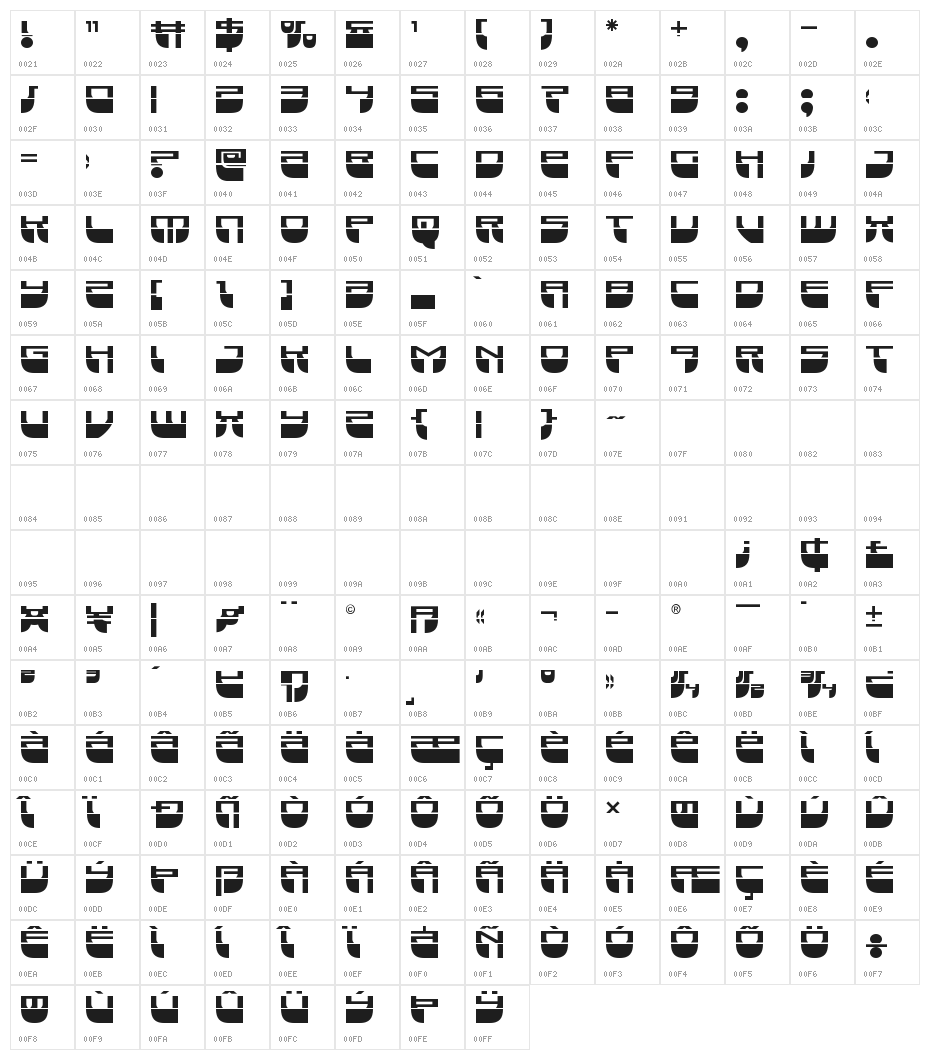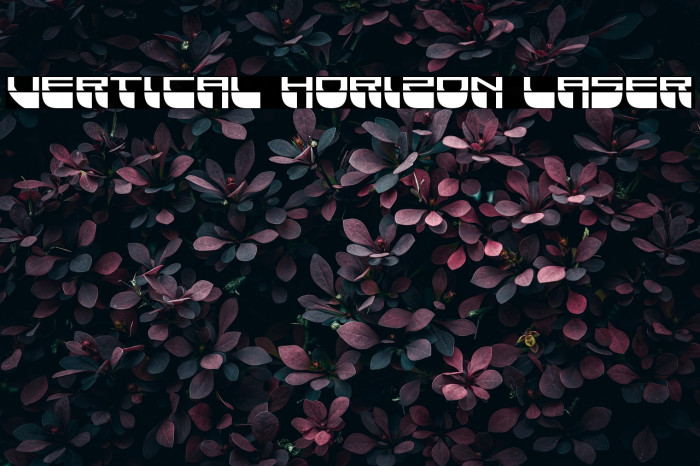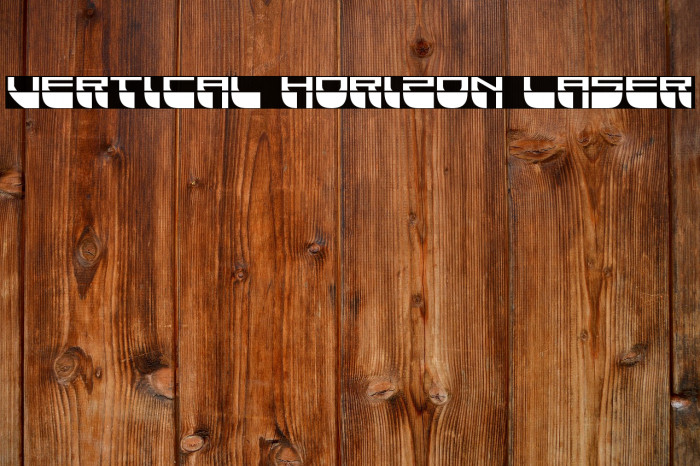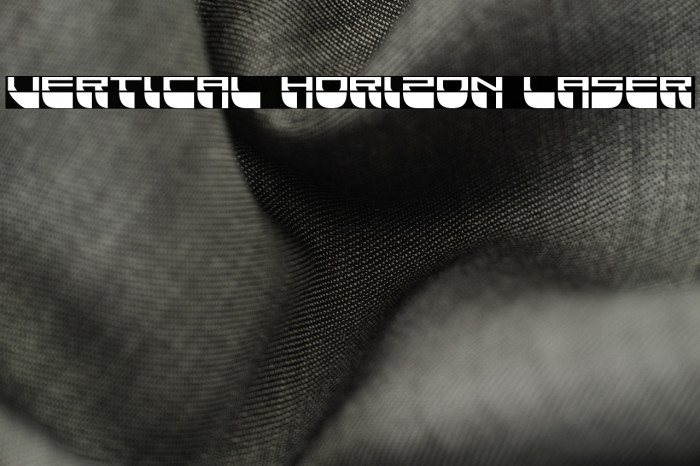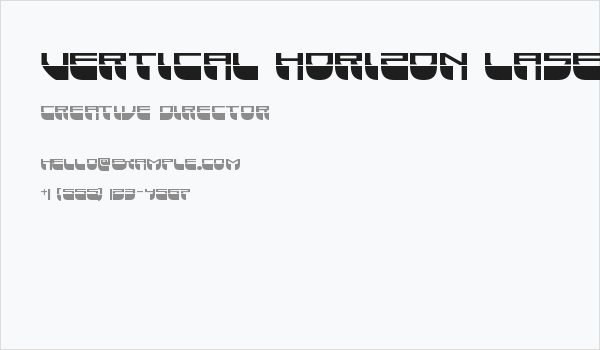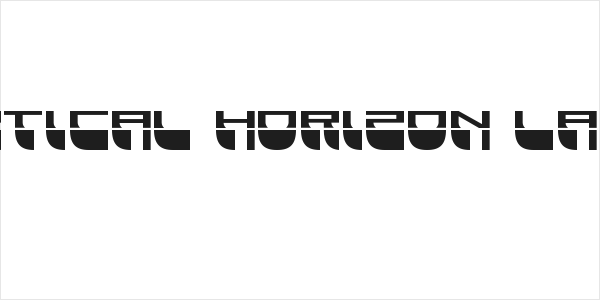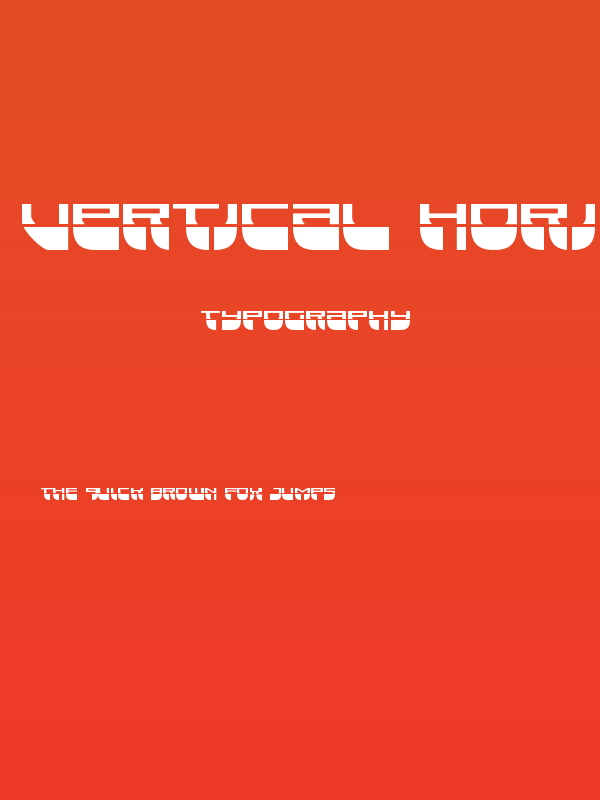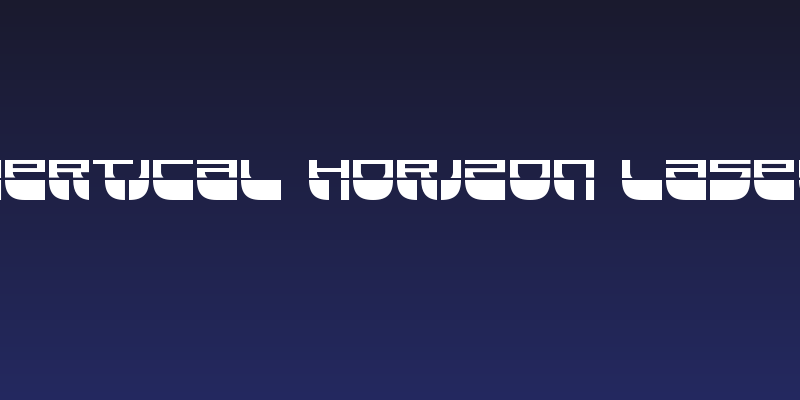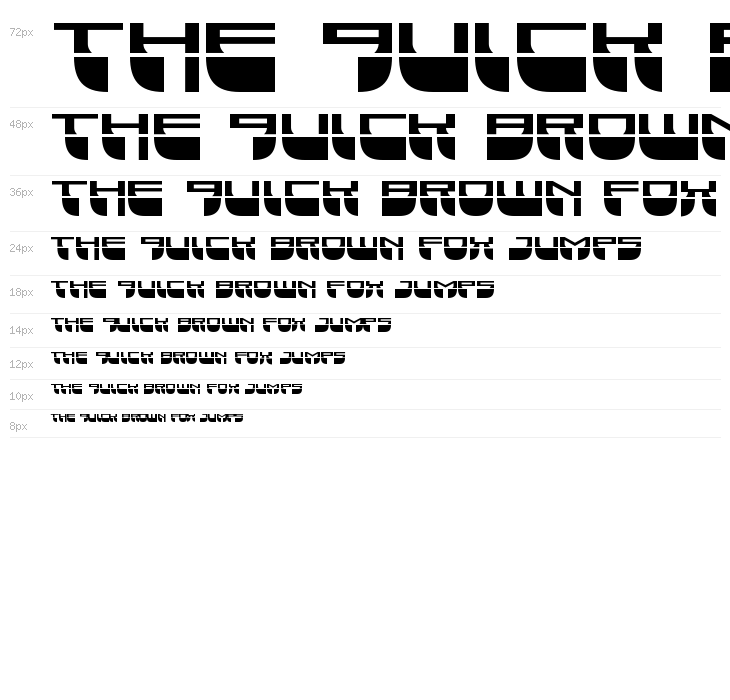
Vertical Horizon Laser Font
Vertical Horizon Laser Description
This font features a futuristic and geometric design with bold, angular shapes. The characters are constructed with a strong emphasis on horizontal and vertical lines, creating a laser-cut appearance. The uppercase and lowercase letters share a consistent style, with the lowercase slightly smaller but maintaining the same structural elements. Numbers and special characters follow the same design principles, ensuring uniformity across the typeface. The font's unique style is reminiscent of digital displays or sci-fi themes, making it stand out with its distinctive, modern aesthetic.
| Proposed Projects | Ideal for sci-fi themed projects, digital displays, tech branding, or futuristic posters. |